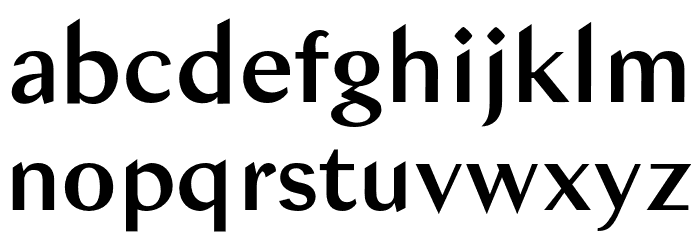
Bagnard Sans Regular Font
This font features a clean and modern sans-serif design, characterized by its sharp edges and uniform stroke width. The uppercase letters are bold and assertive, while the lowercase letters maintain a consistent and harmonious flow. The numerals are clear and easy to read, making them suitable for various applications. Special characters are well-defined, adding versatility to the font. The overall appearance is sleek and professional, suitable for both digital and print media.
A modern sans-serif font with clean lines and a professional appearance.
- Proposed Projects: Ideal for corporate branding, website headers, editorial design, and advertising materials.